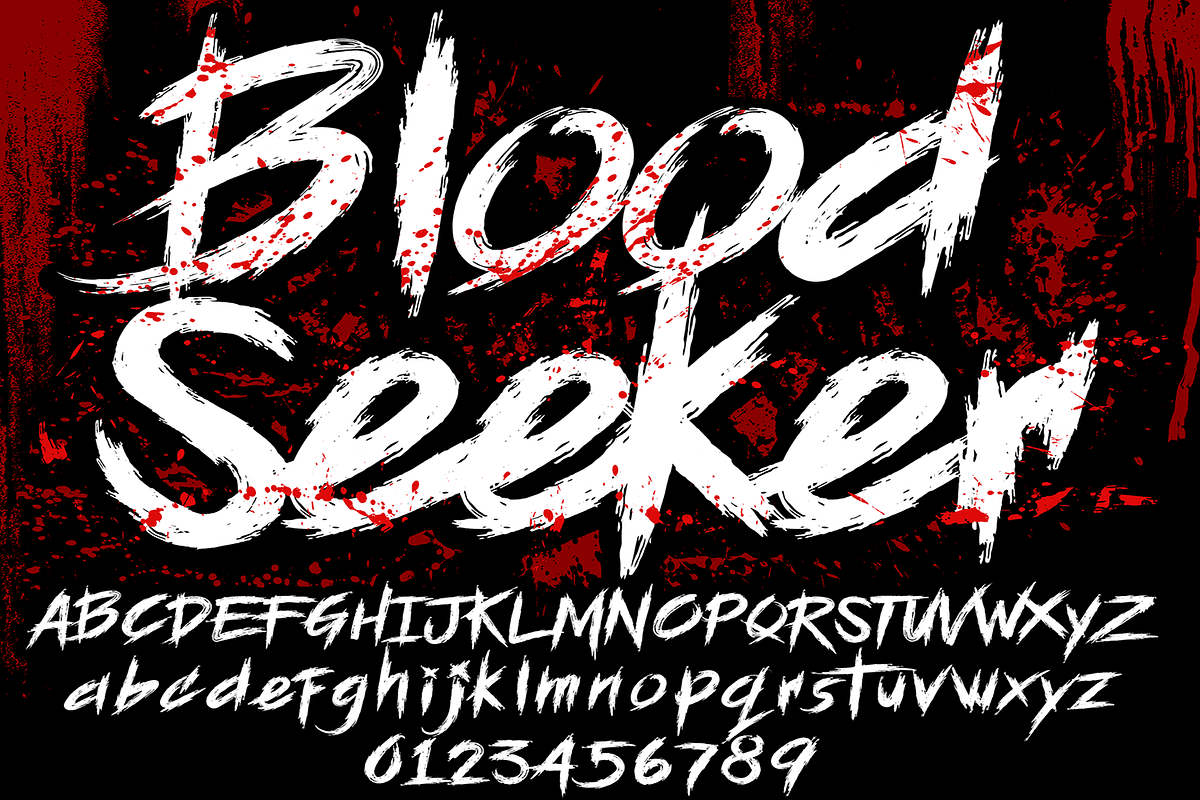
BLOOD SEEKER
Introducing
BLOOD SEEKER
- Horror inspired font with special edgy brush stroke ends to make brutal perfect effect.
- Dark distort theme font for horror projects, halloween design, spooky events, etc.
- Available in Uppercase, Numbers, Punctuations and Symbols.